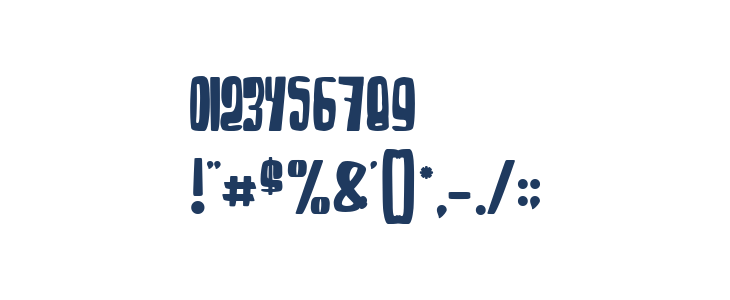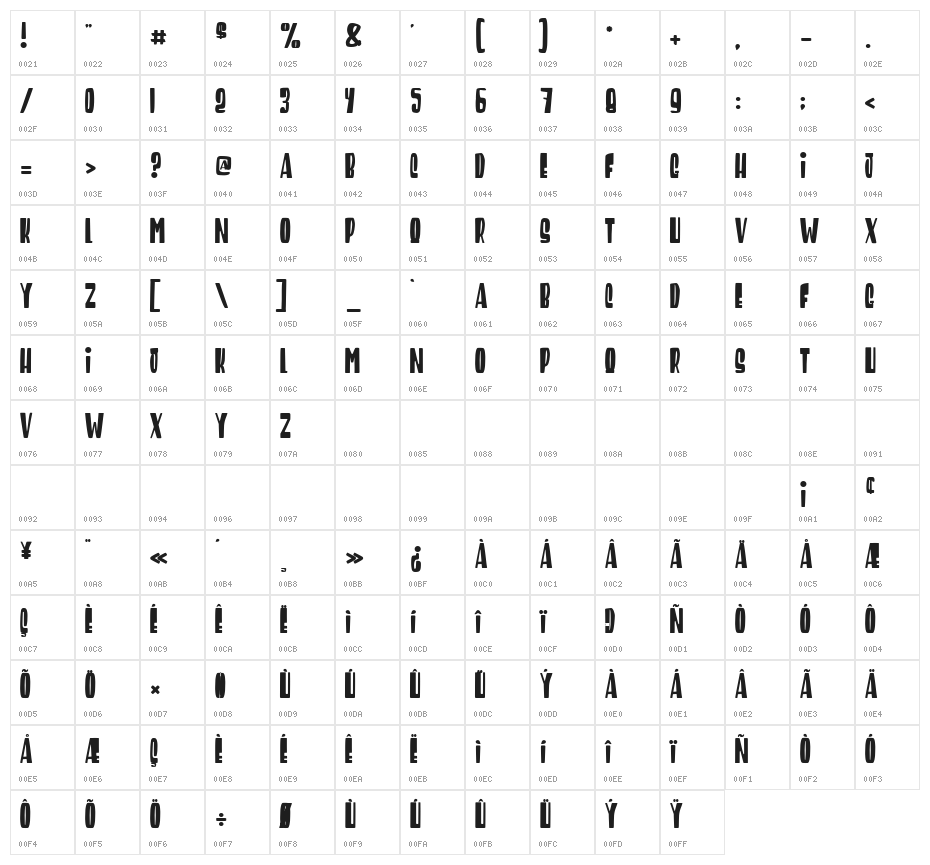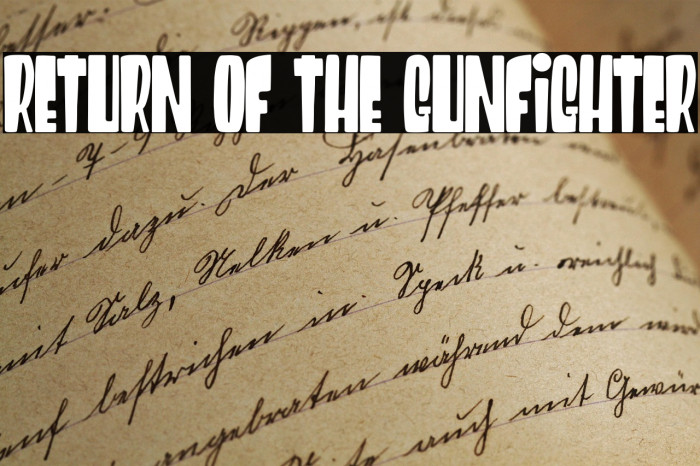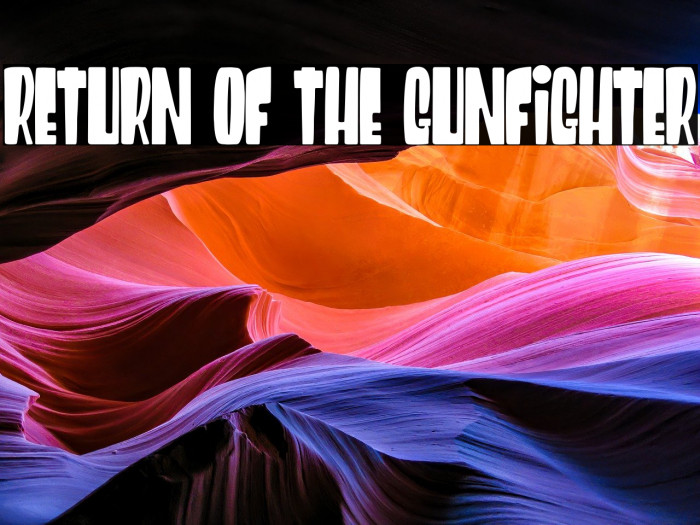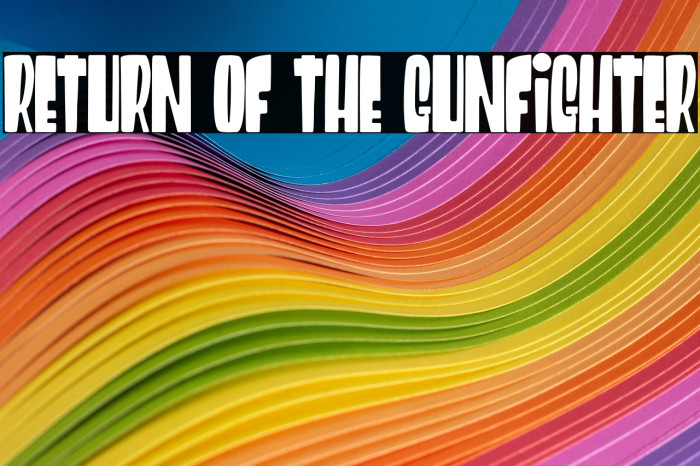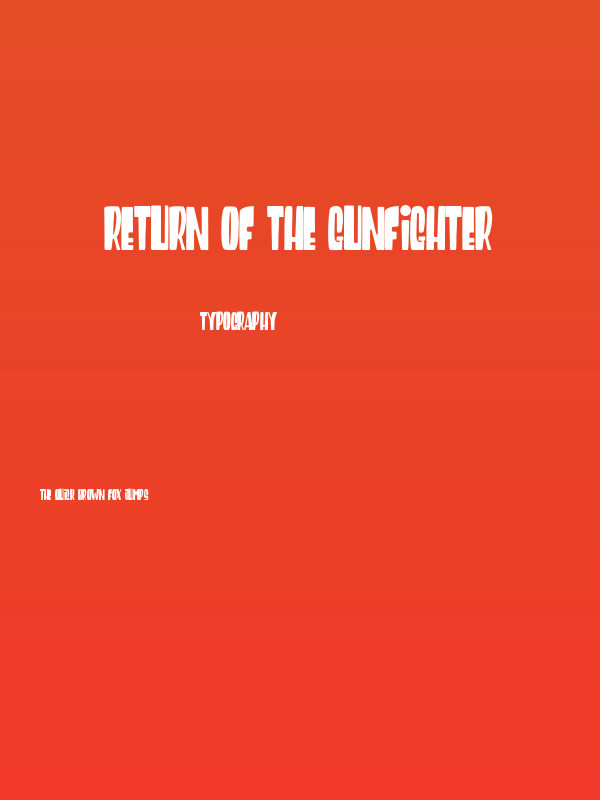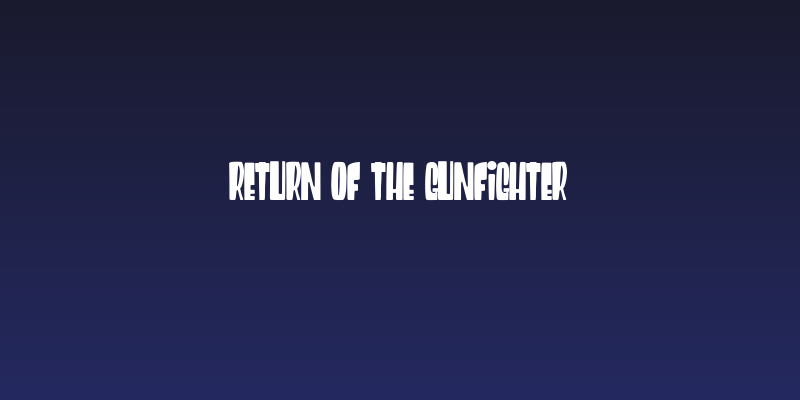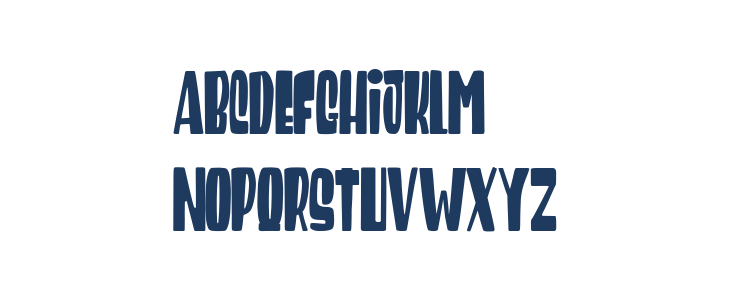
Return of the Gunfighter Font
Return of the Gunfighter Description
This font features a bold and dynamic style with a strong presence, characterized by its thick, blocky letterforms. The uppercase and lowercase letters share a consistent weight, creating a uniform appearance. The characters have a slightly condensed width, giving them a compact and impactful look. The font includes a full set of numerals and a variety of special characters, making it versatile for different design needs. Its high contrast in stroke thickness adds to its boldness, making it stand out in any context. The overall style is decorative and eye-catching, suitable for projects that require a strong visual impact.
| Proposed Projects | Ideal for posters, headlines, logos, and any design requiring a strong visual impact. |